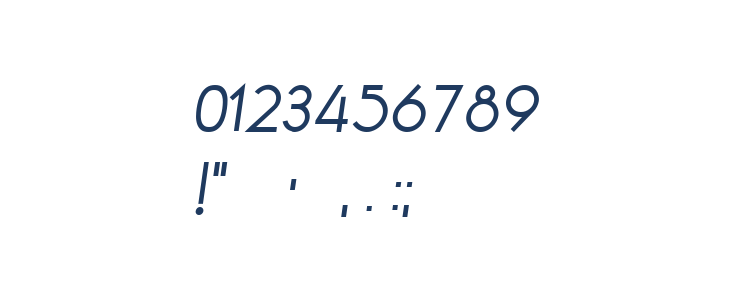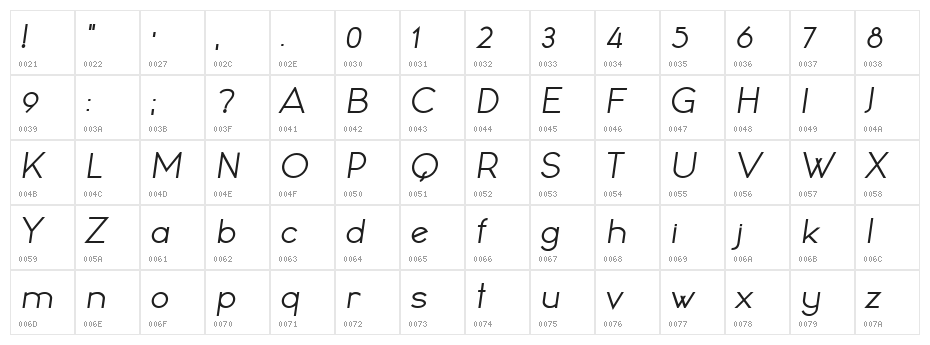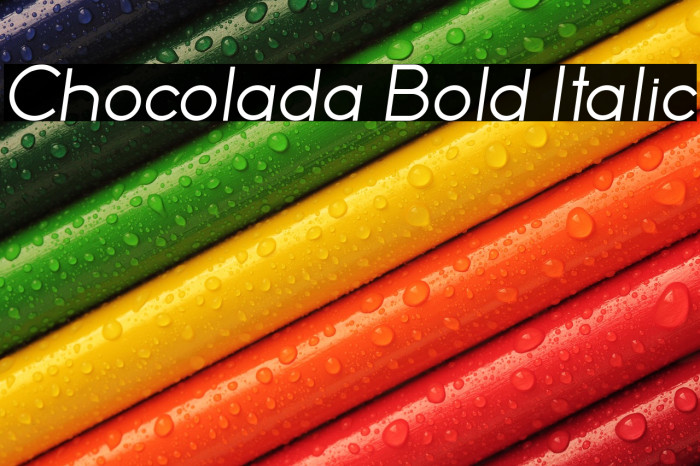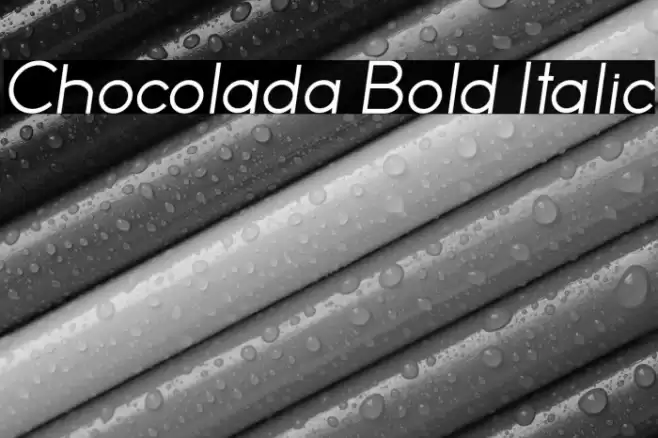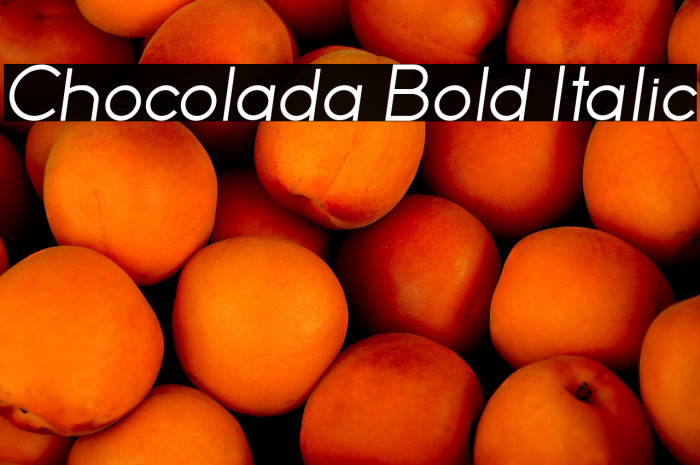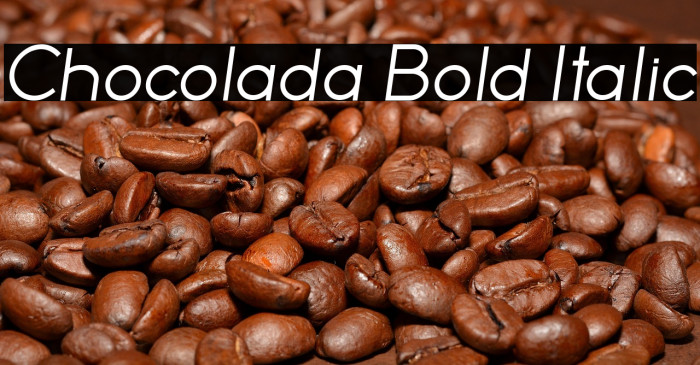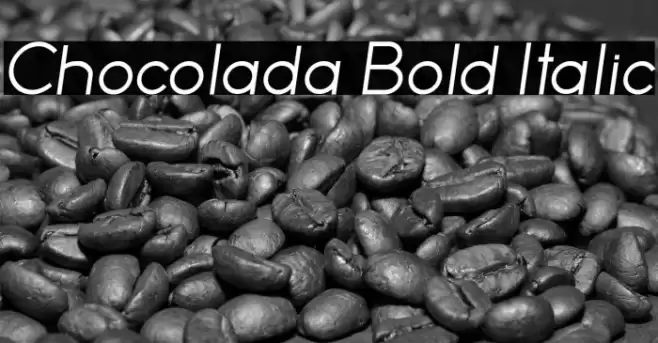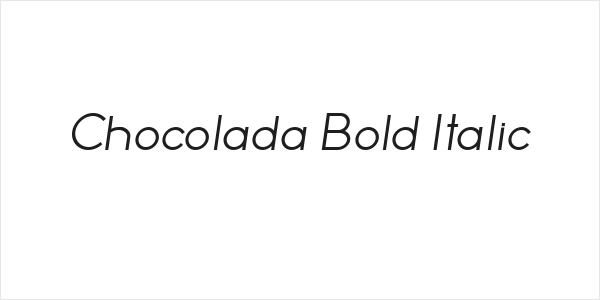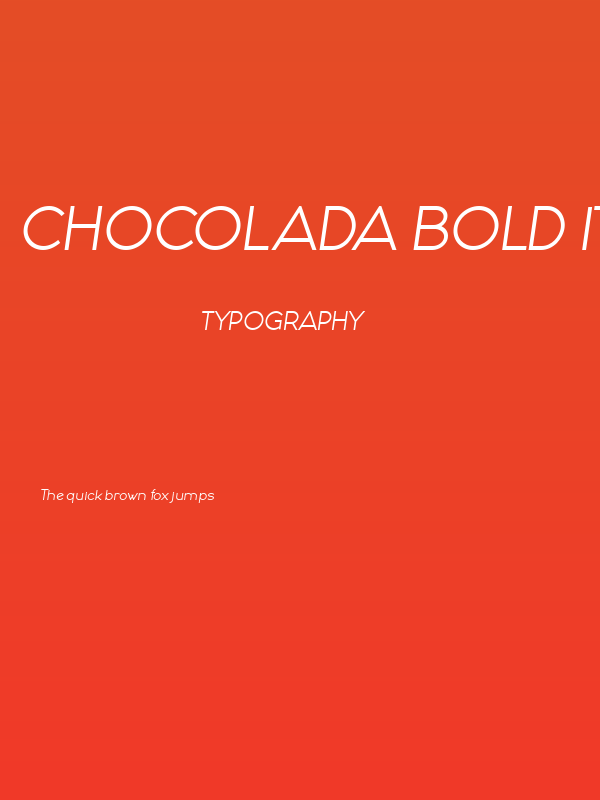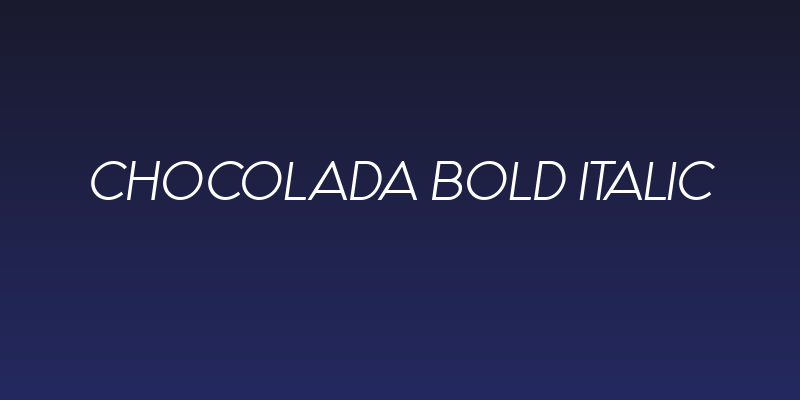
Chocolada Bold Italic Font
Chocolada Bold Italic Description
This font features a sleek, modern design with a bold and italicized style. The characters are slightly slanted, giving a dynamic and forward-moving appearance. The strokes are consistent in thickness, providing a uniform look across all letters and numbers. The uppercase and lowercase letters maintain a harmonious balance, with rounded edges that soften the overall aesthetic. The numerals are clear and legible, matching the style of the alphabetic characters. Special characters are included, maintaining the same stylistic elements as the letters and numbers.
| Proposed Projects | Ideal for branding, advertising, and editorial design projects where a modern and bold statement is needed. |